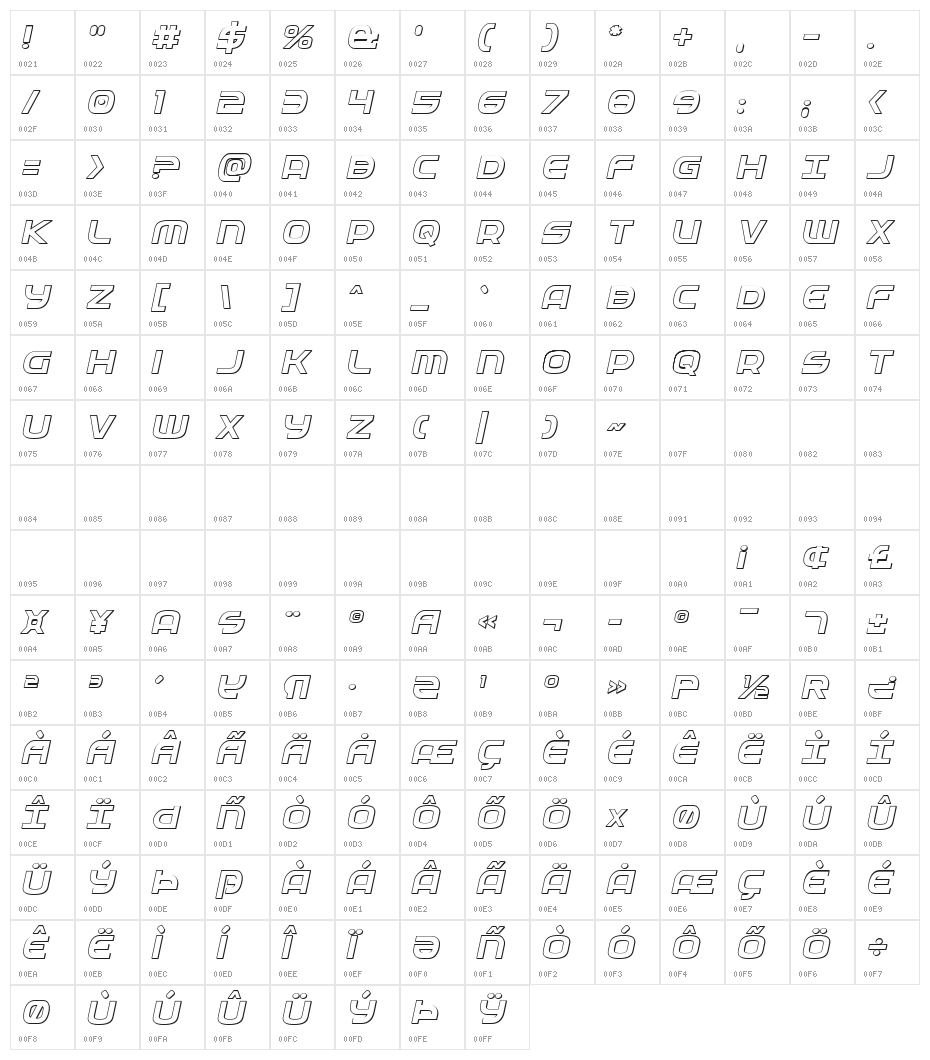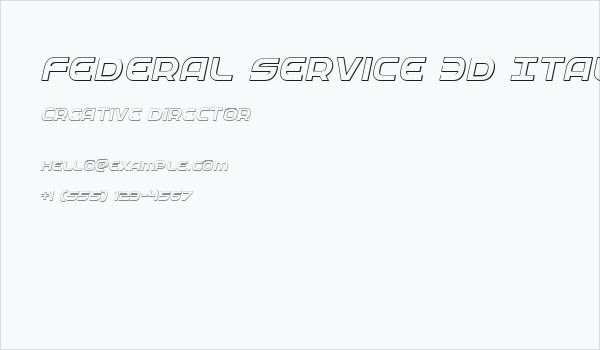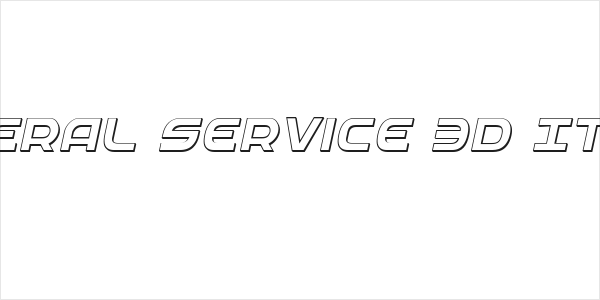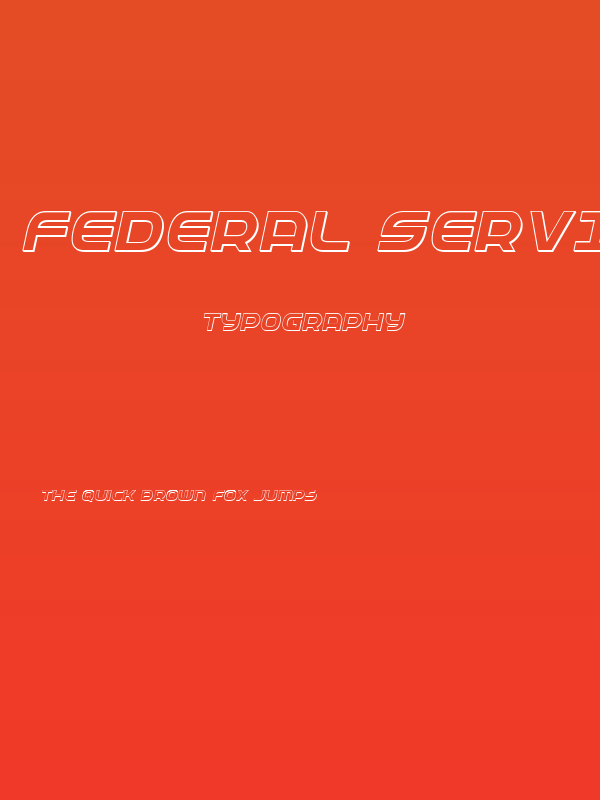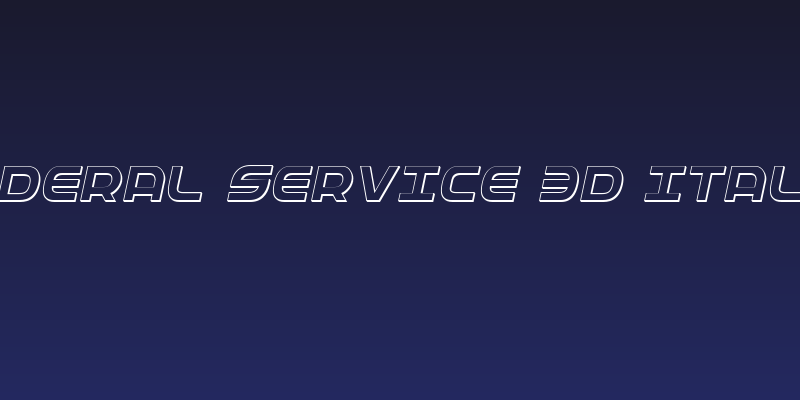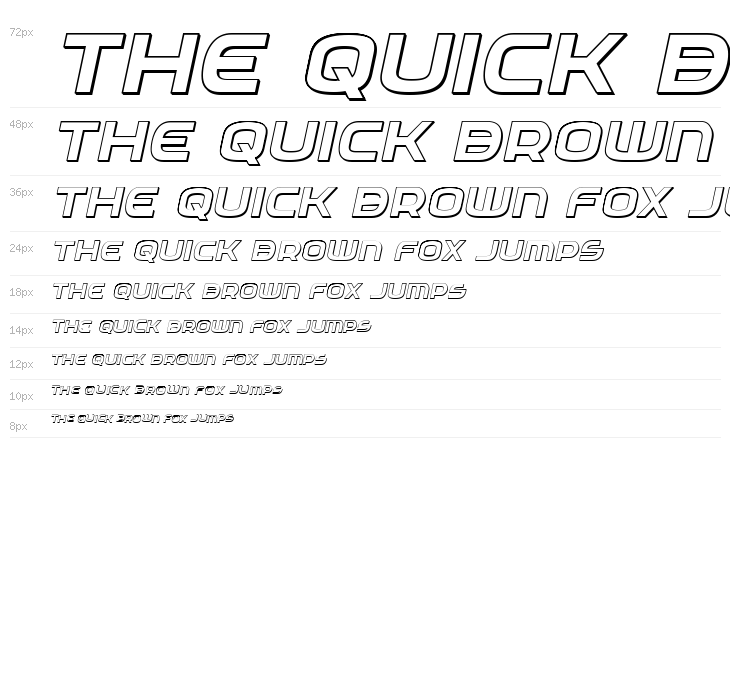
Federal Service 3D Italic Font
Federal Service 3D Italic Description
This font features a bold, three-dimensional design with a distinct italic slant, giving it a dynamic and futuristic appearance. The characters are outlined, creating a hollow effect that enhances its 3D look. The uppercase and lowercase letters maintain a consistent style, with sharp angles and clean lines. The numerals and special characters follow the same design principles, ensuring uniformity across all glyphs. The font's unique style makes it stand out, suitable for projects that require a modern and eye-catching typeface.
| Overall Style | Futuristic, Modern |
| Proposed Projects | Ideal for video game titles, sci-fi movie posters, technology branding, and modern advertising campaigns. |